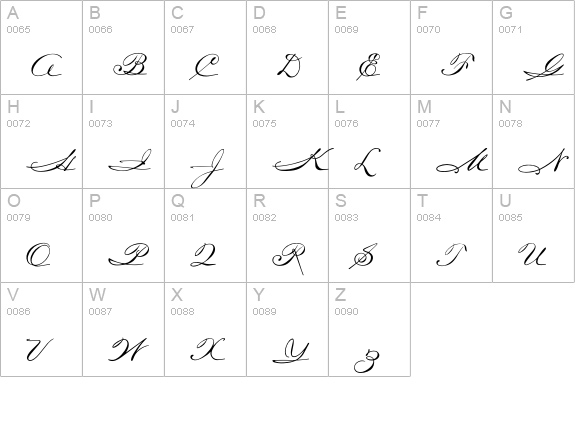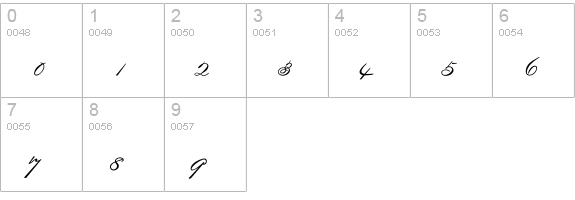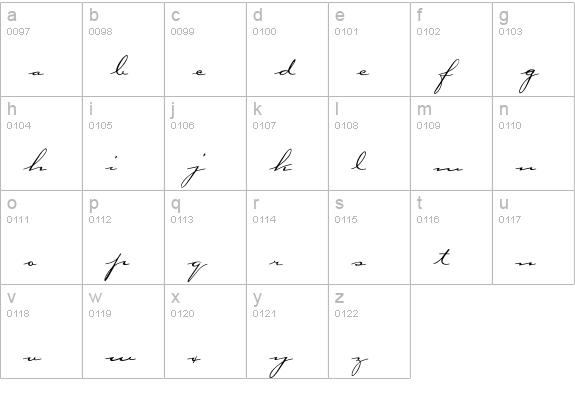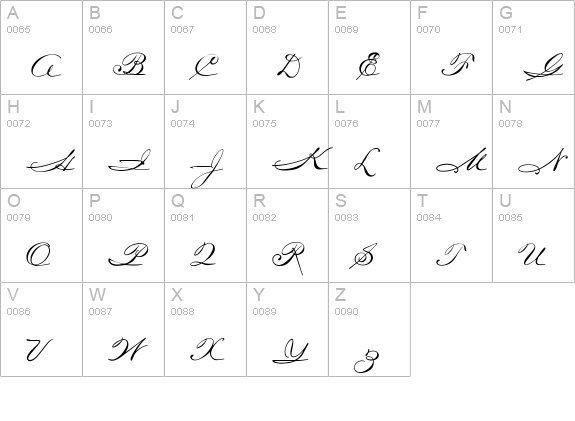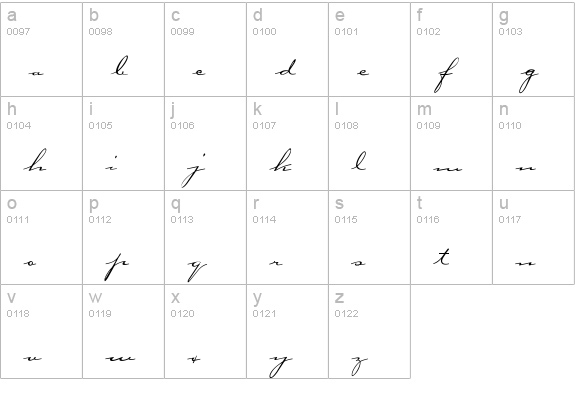
OPTICarmella-HandScript Font Details
OPTICarmella-HandScript is a charming and versatile handwritten font that exudes elegance and sophistication. With its fluid strokes and delicate curves, this font adds a touch of personal flair to any design project. Whether you are creating invitations, greeting cards, or branding materials, OPTICarmella-HandScript is the perfect choice to make your text stand out. This font is a wonderful blend of modern style and classic elegance, making it suitable for a wide range of applications. Its clean lines and smooth flow give it a timeless appeal that is sure to captivate your audience. OPTICarmella-HandScript is ideal for adding a touch of warmth and personality to your designs. Best of all, OPTICarmella-HandScript is available for free download at FontsMarket.com. So why wait? Add this beautiful font to your collection today and start creating stunning designs that are sure to leave a lasting impression.